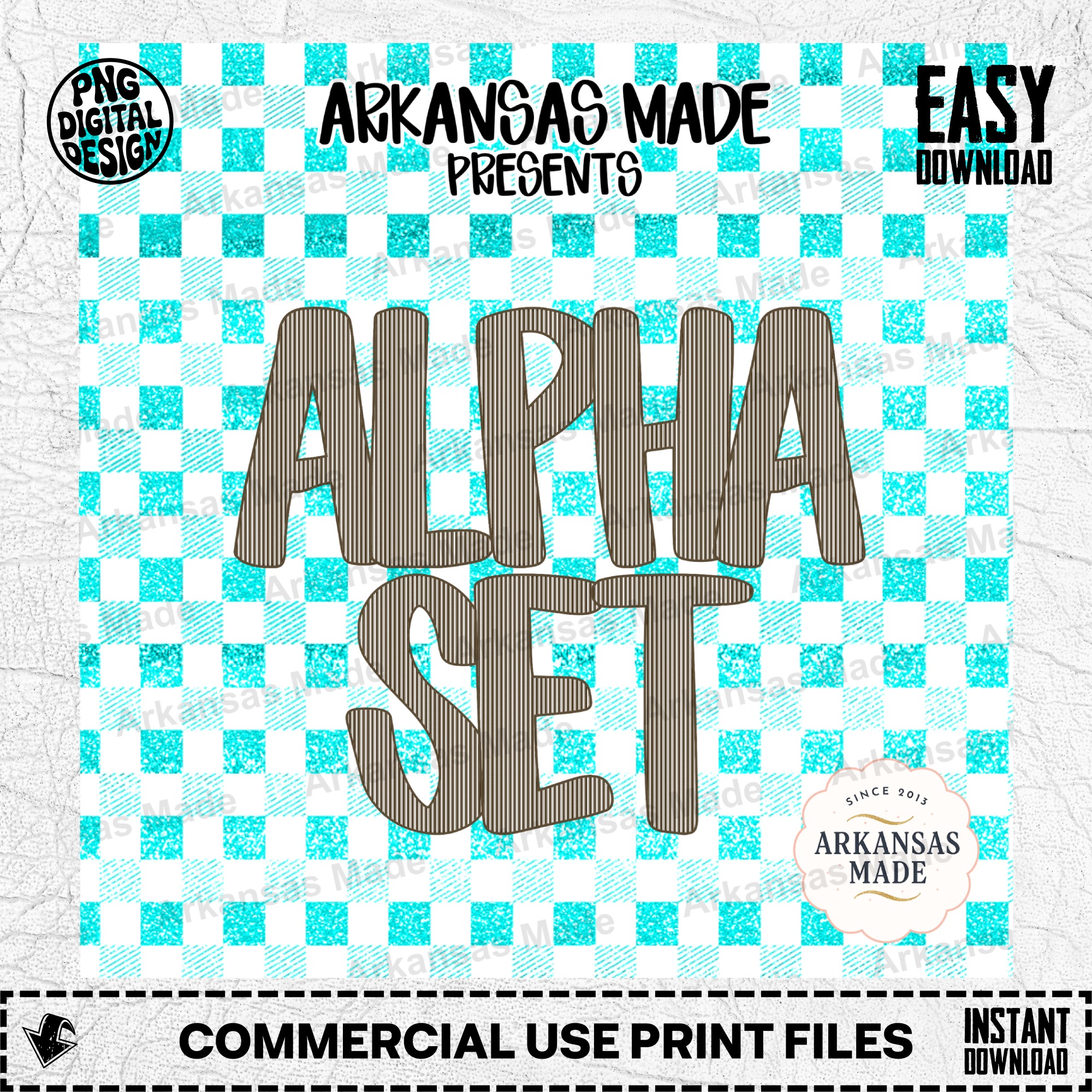
Striped Alpha PNG Letters Set, Blocky Alphabet Font, Digital Download for Crafting & Customization, DIY Name Monogram, Instant Files
Elevate your custom creations with our unique Striped Alpha PNG Letters Set! Perfect for personalized crafts, digital art, and DIY projects. This blocky alphabet font offers a distinct, textured look ideal for crafters, small business owners, and DIY enthusiasts. Design custom names, monograms, and phrases for apparel, tumblers, signs, or unique gifts. A versatile digital download for birthdays, holidays, or adding a personal touch to any occasion.